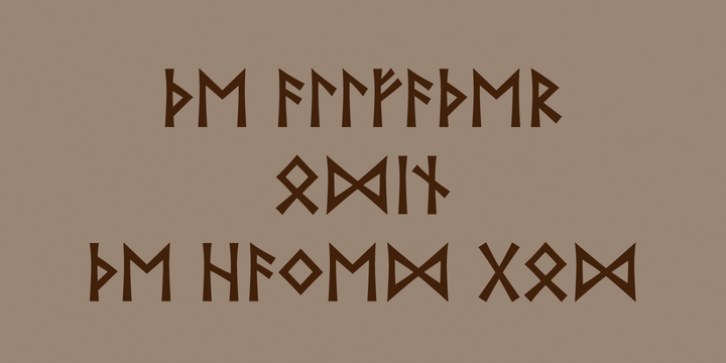
Runik Futhark was published by Tim Rolands. Runik Futhark contains 1 style.
Runik Futhark is a modern font incorporating the earliest Germanic-Norse runes, known as the Elder Futhark. It's a bold rendition ready for all your Viking raiding party needs!